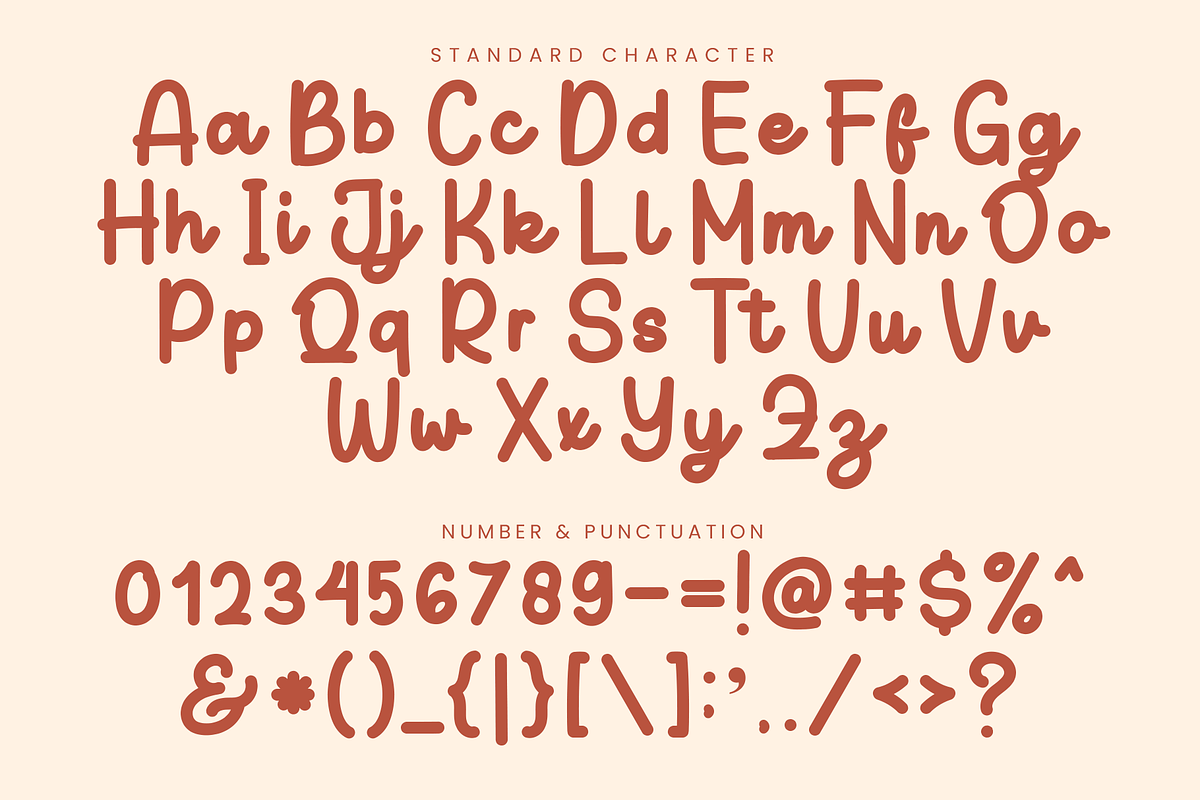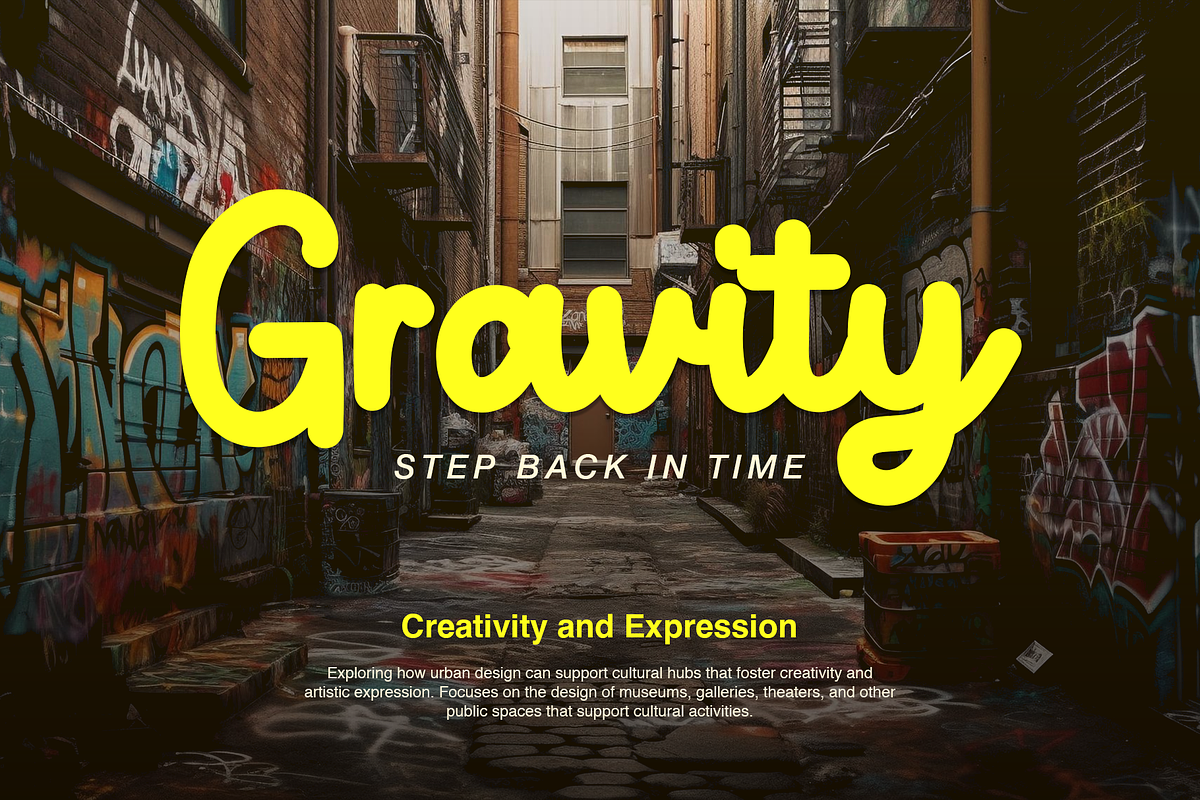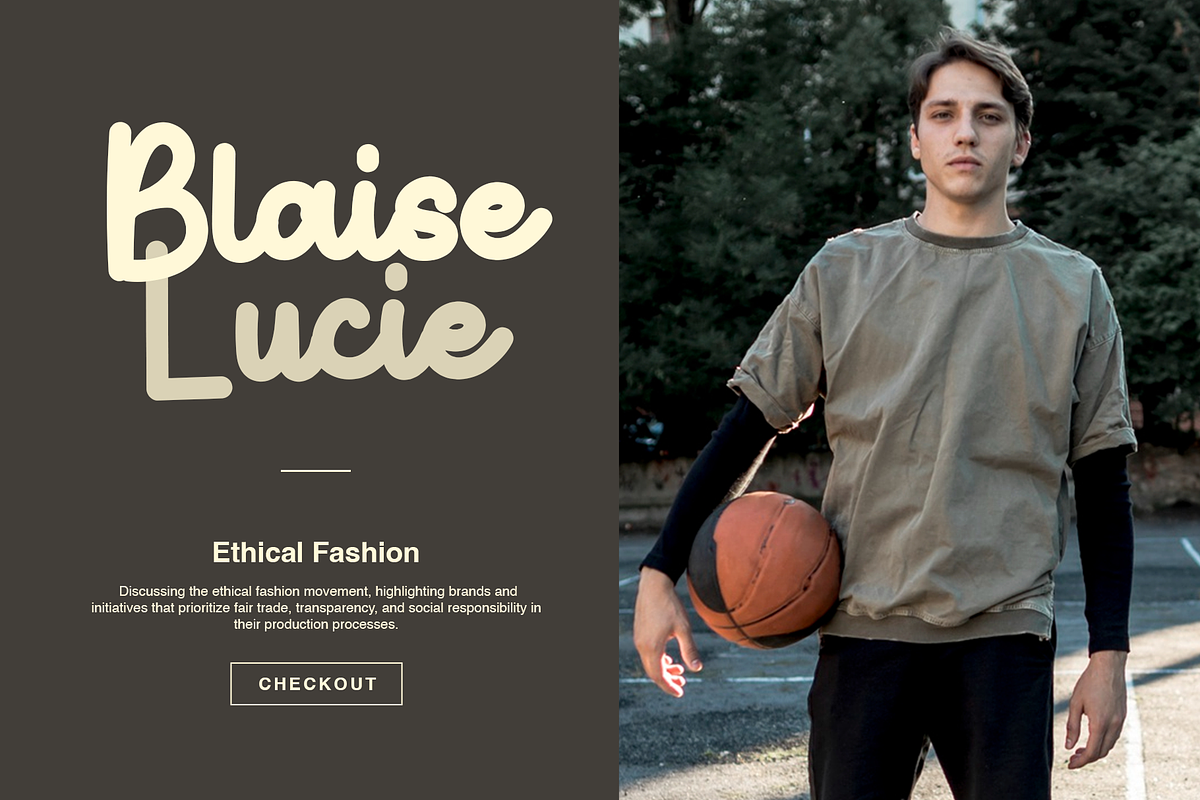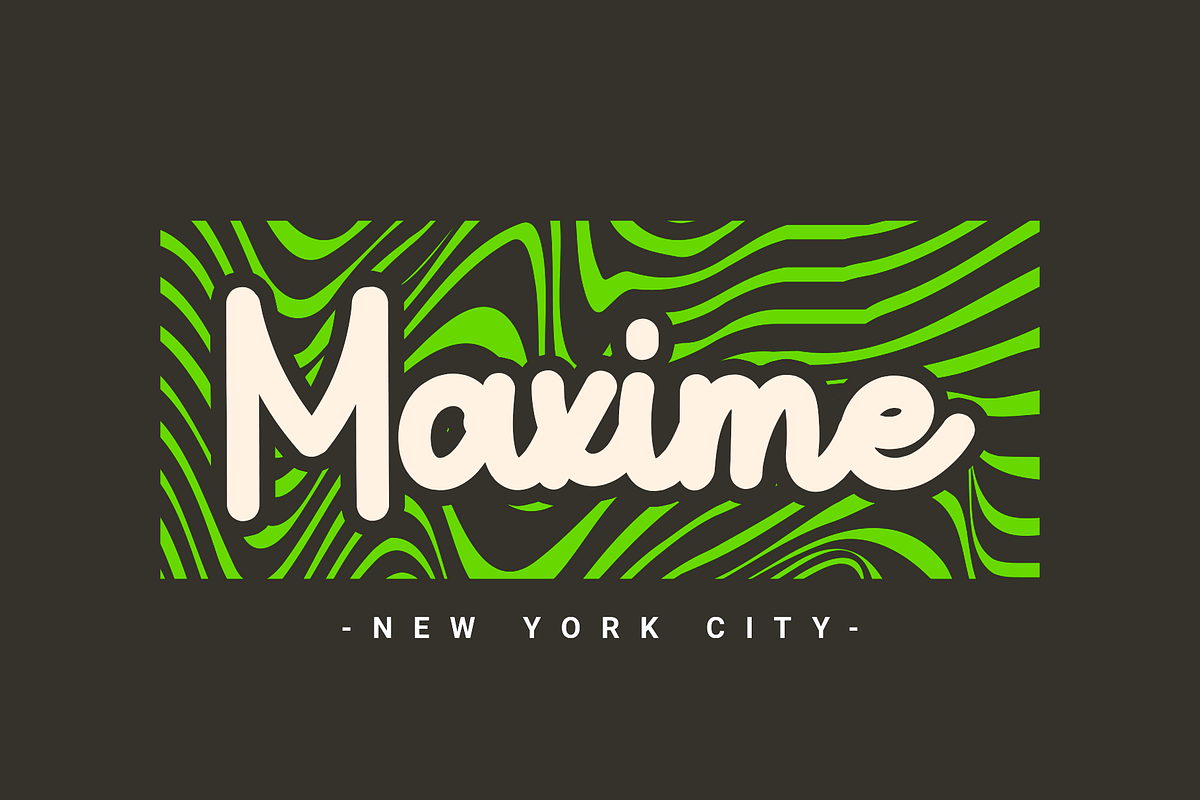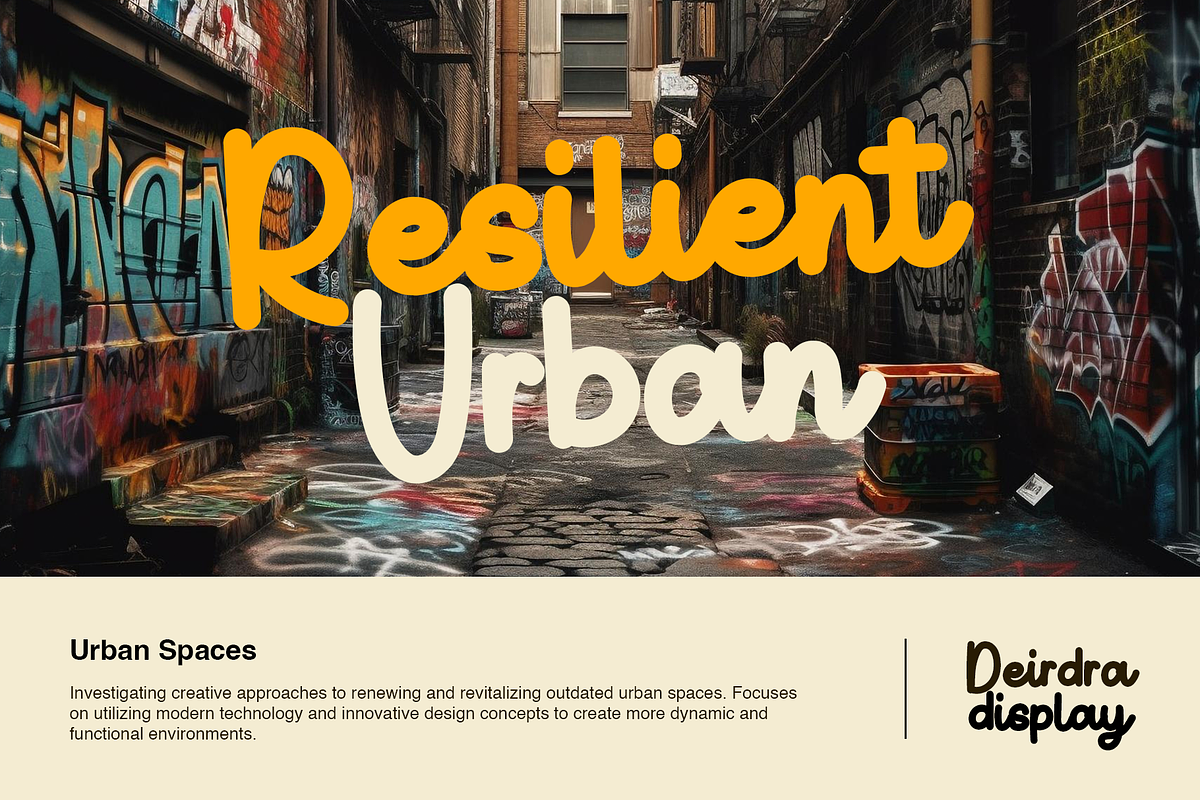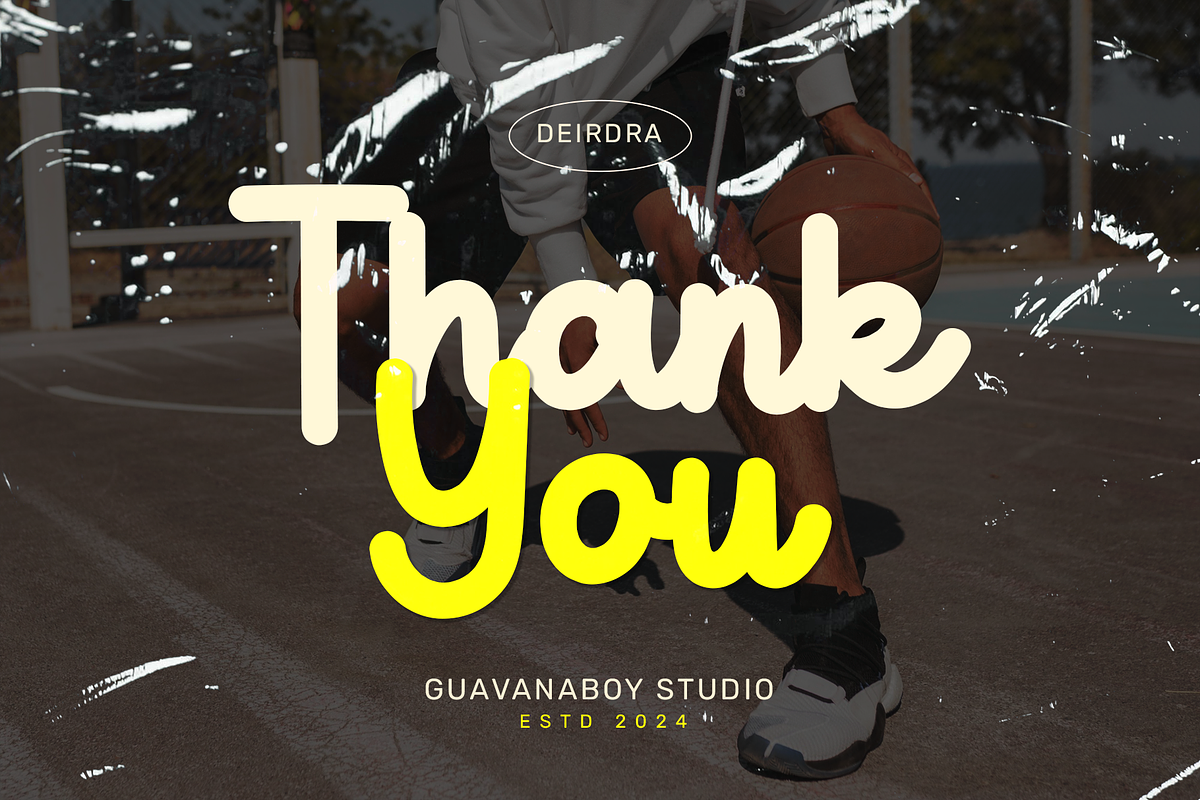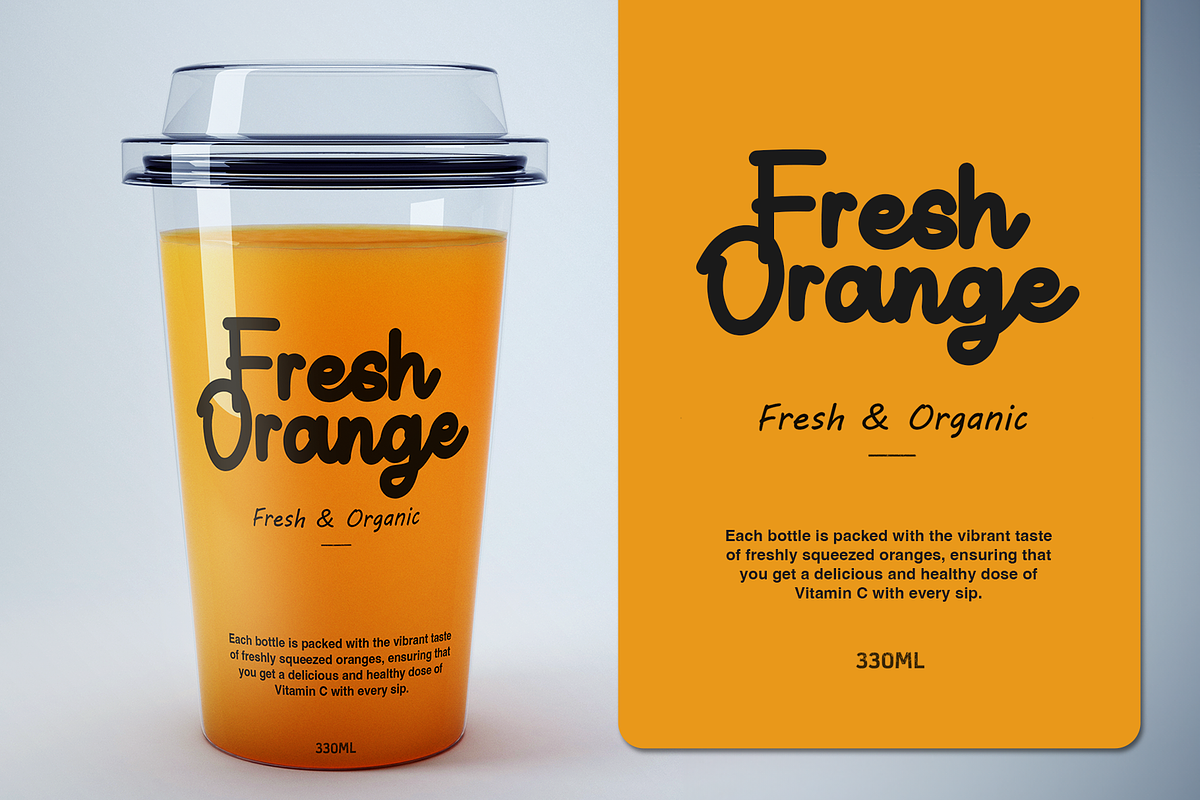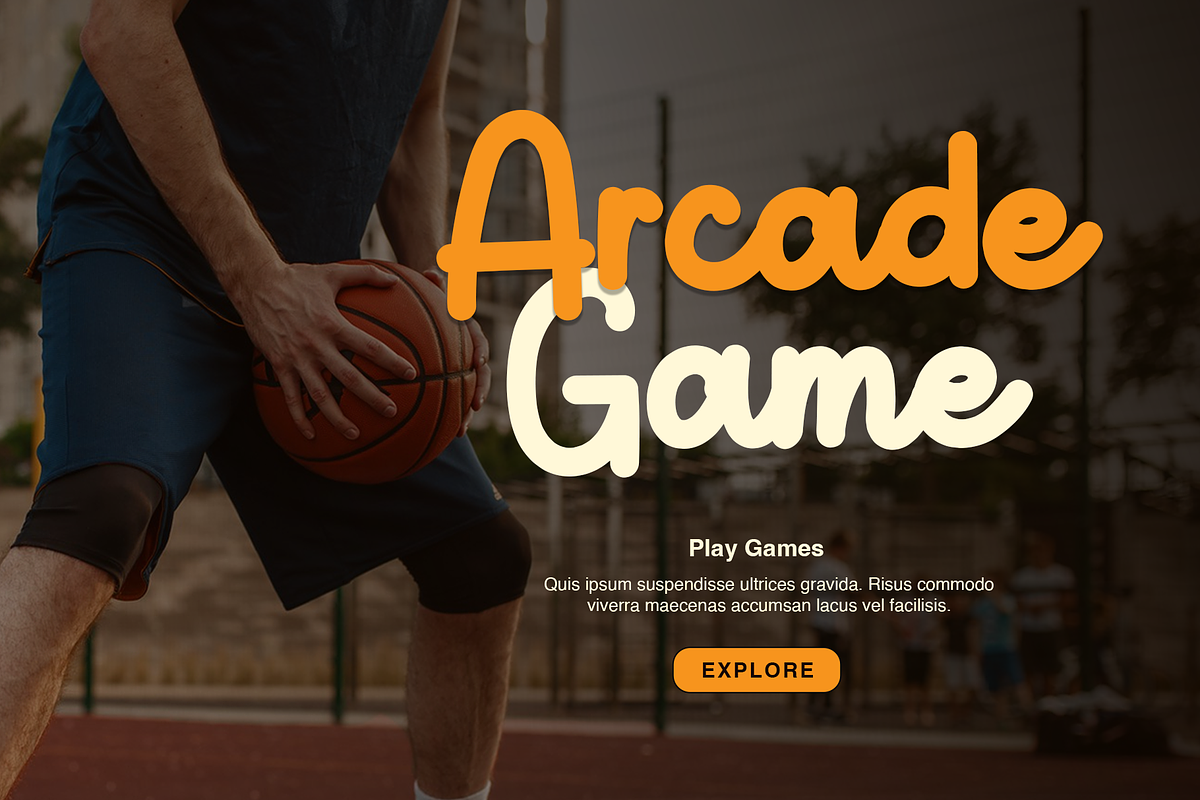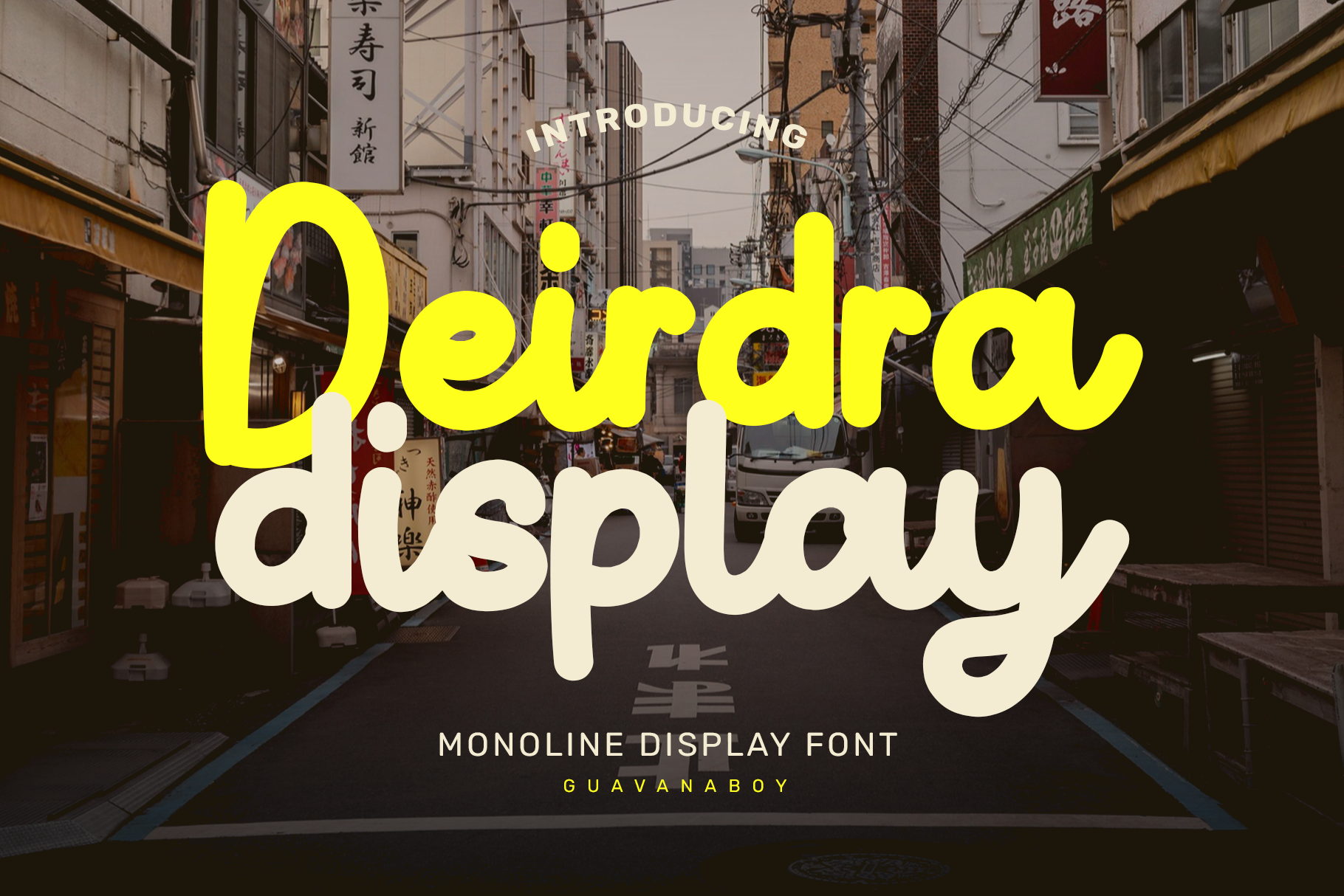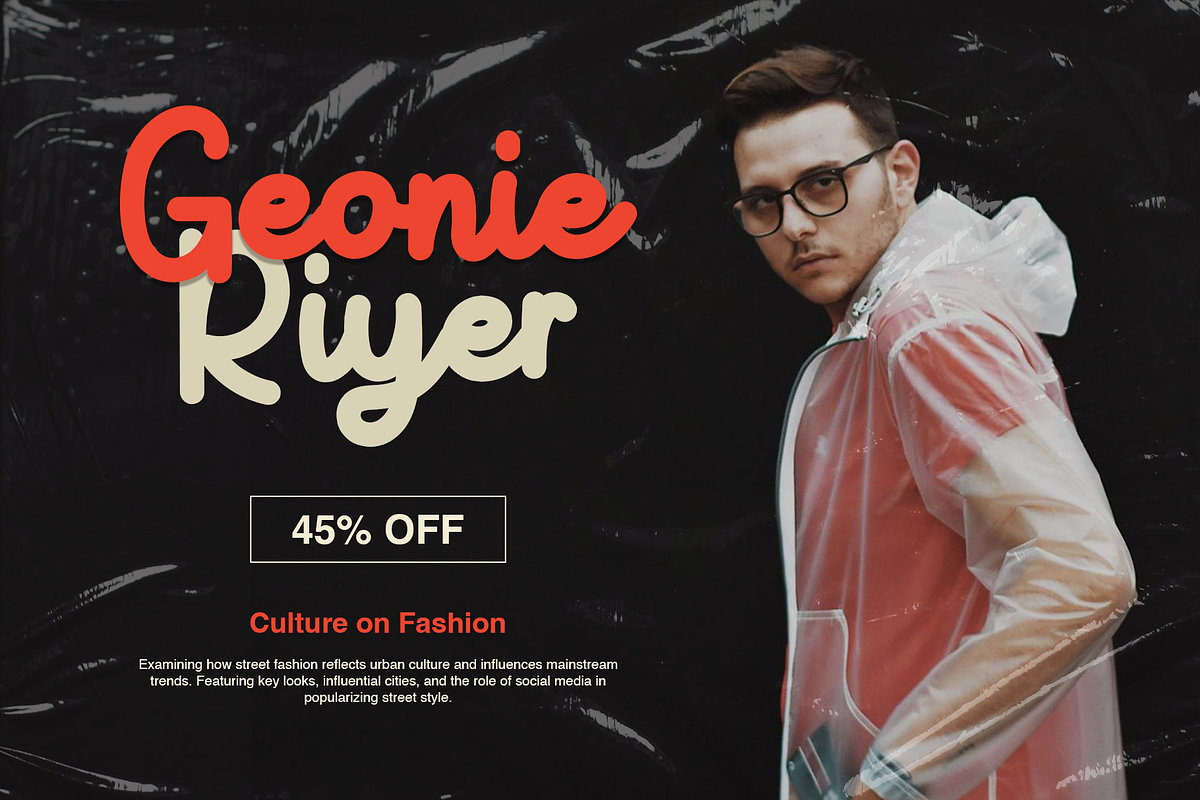
Deirdra - Monoline Display Font
Deirdra Font - A Monoline Elegant Display font - by Guavanaboy.
- Perfect Elegant monoline font, very easy to use in any software Files